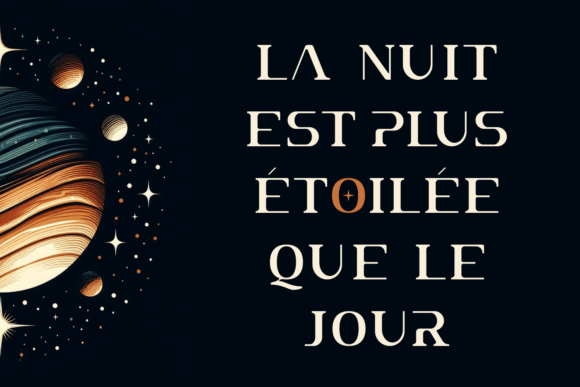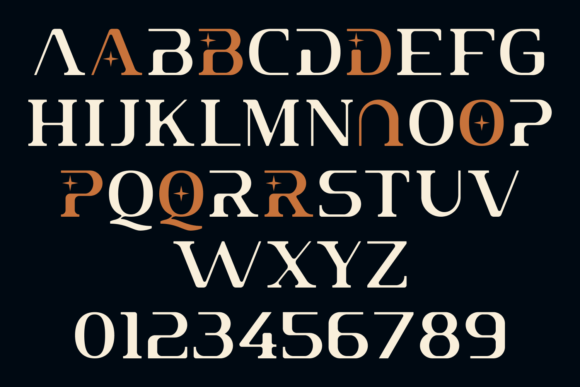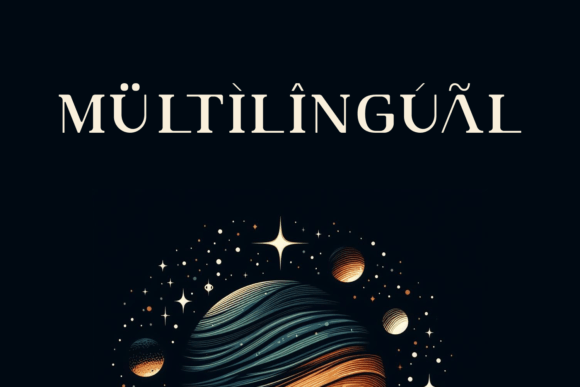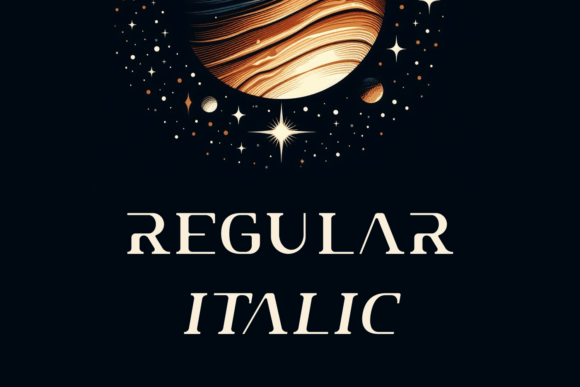
Asterixa Font: A Celestial Touch for Your Design Projects
In the vast expanse of typography, few fonts manage to capture the essence of modernity while paying homage to classic design principles. Asterixa, a modern serif font, does just that, bringing a celestial allure to any design project it touches. With its unique blend of contemporary aesthetics and traditional typographic elements, Asterixa is poised to become a favorite among designers and crafters looking to add a touch of the cosmos to their work.
The Genesis of Asterixa
Asterixa’s journey begins with a simple yet ambitious goal: to create a font that embodies the spirit of the stars. Its name, Asterixa, is derived from the Latin word for “star,” reflecting the font’s celestial inspiration. Designed with the modern designer in mind, Asterixa seeks to bridge the gap between classic typography and contemporary design needs. Whether it’s for posters, banners, or digital content, Asterixa aims to bring a fresh, yet timeless, aesthetic to the table.
Key Features of Asterixa
Asterixa boasts a range of features that make it an attractive choice for various design projects:
- Modern Serif Design: Asterixa’s serif design offers a nod to traditional typography while incorporating modern twists that make it stand out in the digital age.
- Celestial Aesthetic: The font’s unique characteristics, such as slightly curved serifs and stellar-inspired letterforms, give it a cosmic allure that’s hard to find elsewhere.
- Versatility: From posters and banners to digital interfaces, Asterixa’s clear and readable design makes it suitable for a wide range of applications.
- Legibility: Despite its decorative elements, Asterixa maintains high legibility, ensuring that messages are conveyed clearly and effectively.
Applications of Asterixa
The versatility of Asterixa makes it an excellent choice for various design projects:
- Posters and Banners: Add a celestial touch to your promotional materials with Asterixa’s unique and eye-catching design.
- Digital Content: Elevate your website, blog, or social media graphics with a font that stands out in the digital landscape.
- Branding: Give your brand a cosmic edge with Asterixa, perfect for companies looking to convey innovation and forward-thinking.
- Packaging: Stand out on store shelves with packaging that features Asterixa’s distinctive and memorable design.
Why Choose Asterixa?
In a sea of fonts, Asterixa offers several reasons to make it your go-to choice:
- Uniqueness: Asterixa’s blend of modern and classic elements ensures your designs won’t get lost in the crowd.
- Timeless Appeal: Its design balances contemporary trends with timeless elegance, ensuring your work remains relevant.
- Designer-Centric: Created with designers in mind, Asterixa is easy to use and integrate into various projects.
Asterixa is more than just a font; it’s a design statement. With its celestial inspiration, modern serif design, and versatile applications, Asterixa is set to revolutionize the way we approach typography in design projects. Whether you’re a professional designer or a crafting enthusiast, Asterixa offers the tools to bring your creative visions to life with a cosmic twist. Immerse yourself in the allure of the stars with Asterixa, and let your designs shine brighter than ever before.